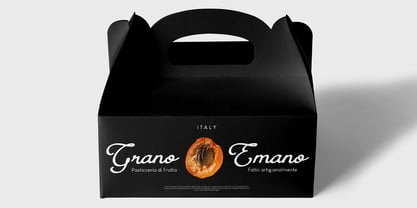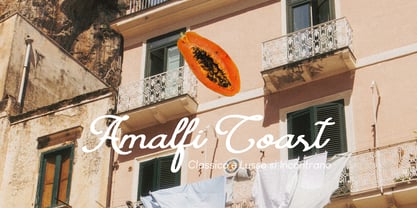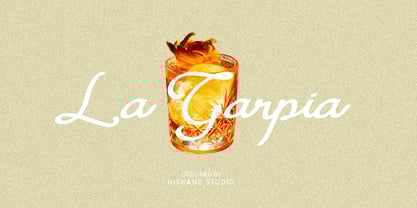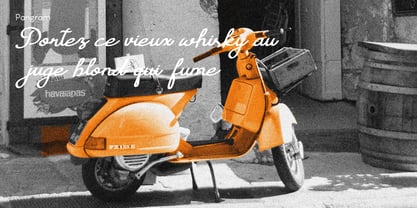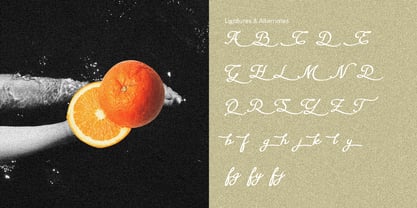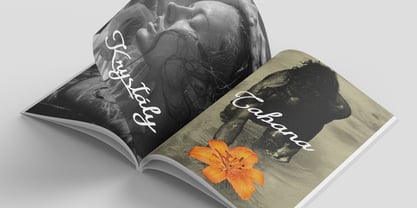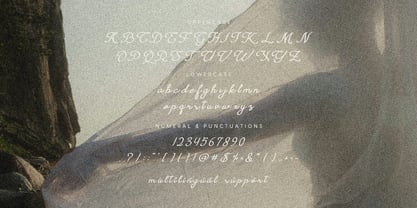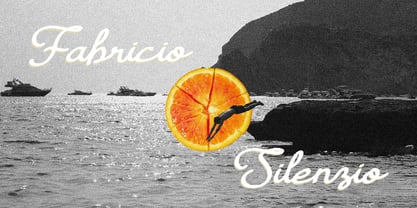
La Garpia
by Hishand Studio
The La Garpia Font Family was designed by Putu Dody Permana and published by Hishand Studio. La Garpia contains 1 styles. More about this family
La Garpia is a handwritten script font that brings a clean, natural flow to every design. Its smooth curves and gentle strokes create an elegant yet casual look, making it versatile for both modern and classic themes. Each letter is carefully shaped to capture the rhythm of real handwriting, giving text a soft and authentic feel. The font’s balanced structure and graceful movement make it suitable for branding, stationery, logos, packaging, and social media visuals. La Garpia adds a refined handwritten touch without losing readability or simplicity. With its effortless charm and timeless appeal, La Garpia offers a perfect blend of style and warmth. Complete with - uppercase - lowercase - ligatures - alternates - multilingual support
Designers: Putu Dody Permana
Foundry: Hishand Studio